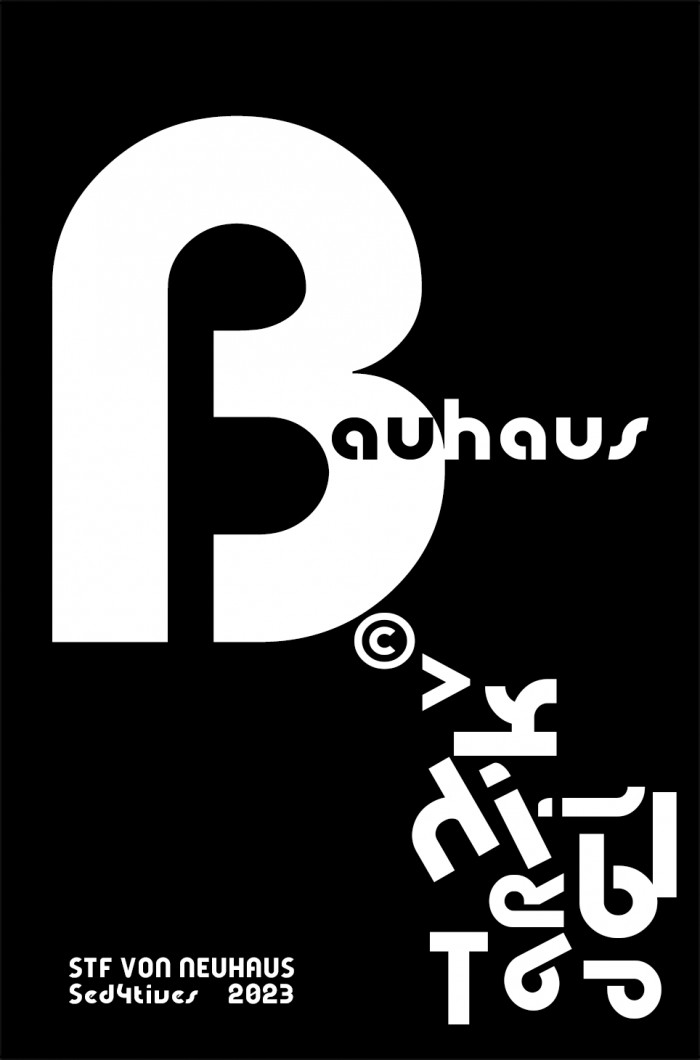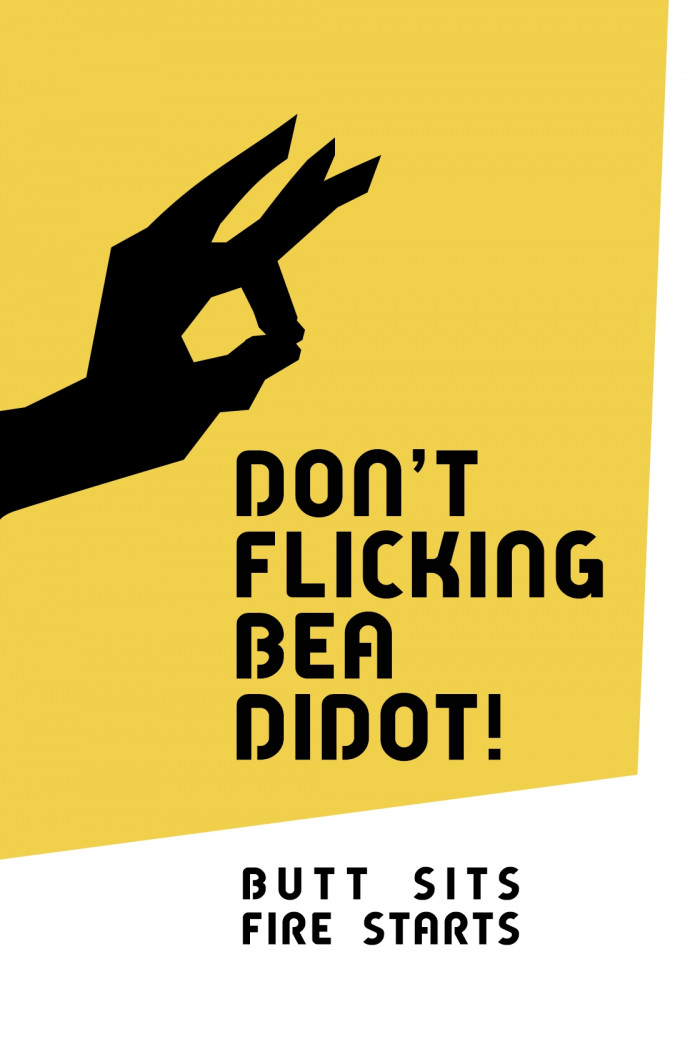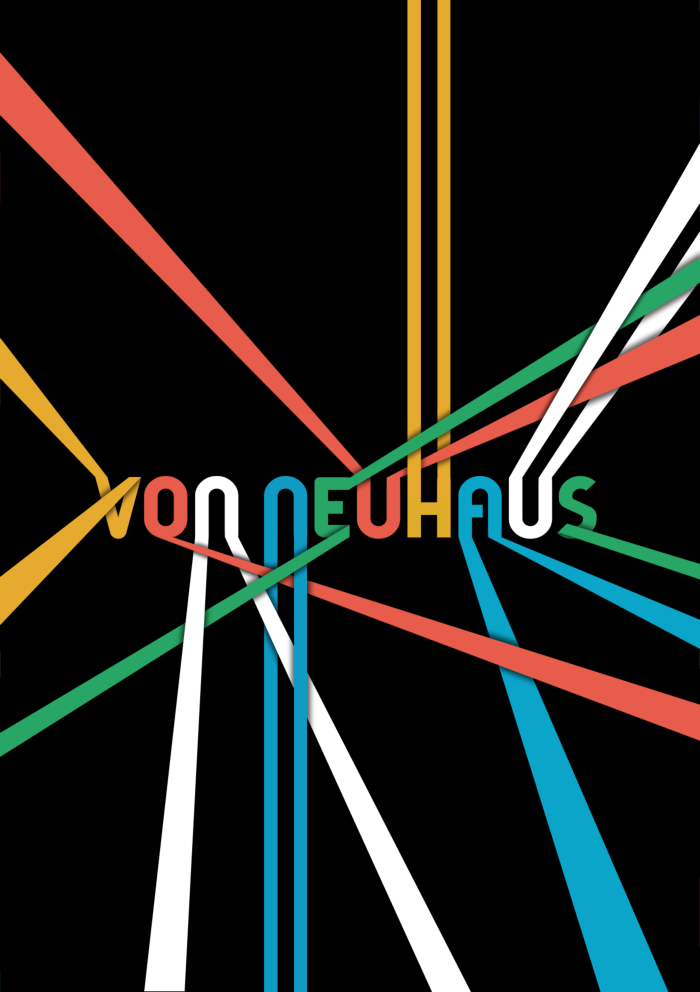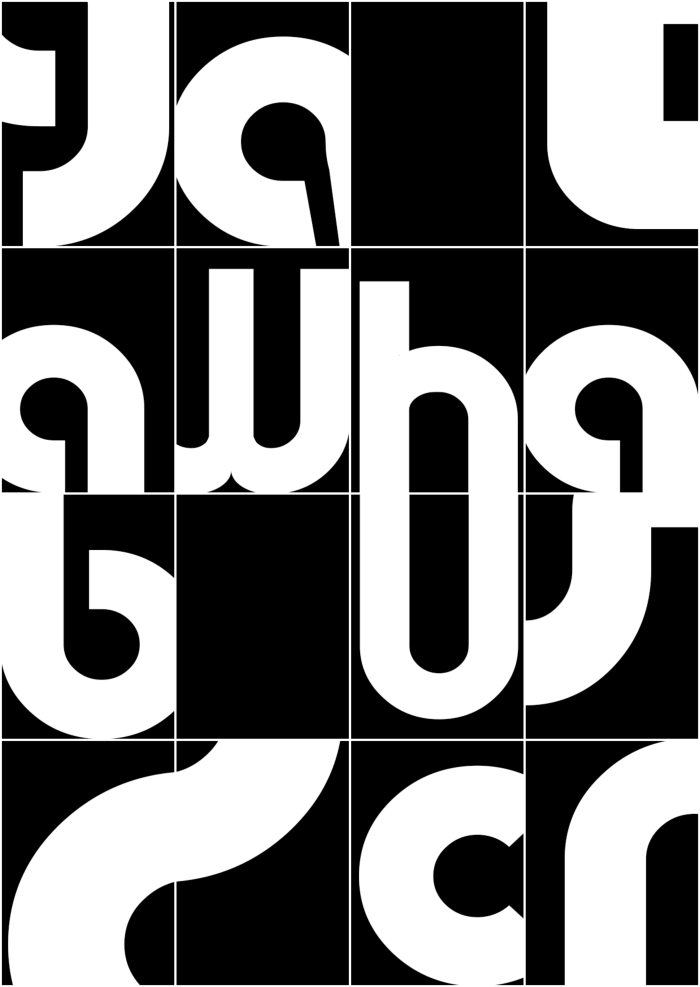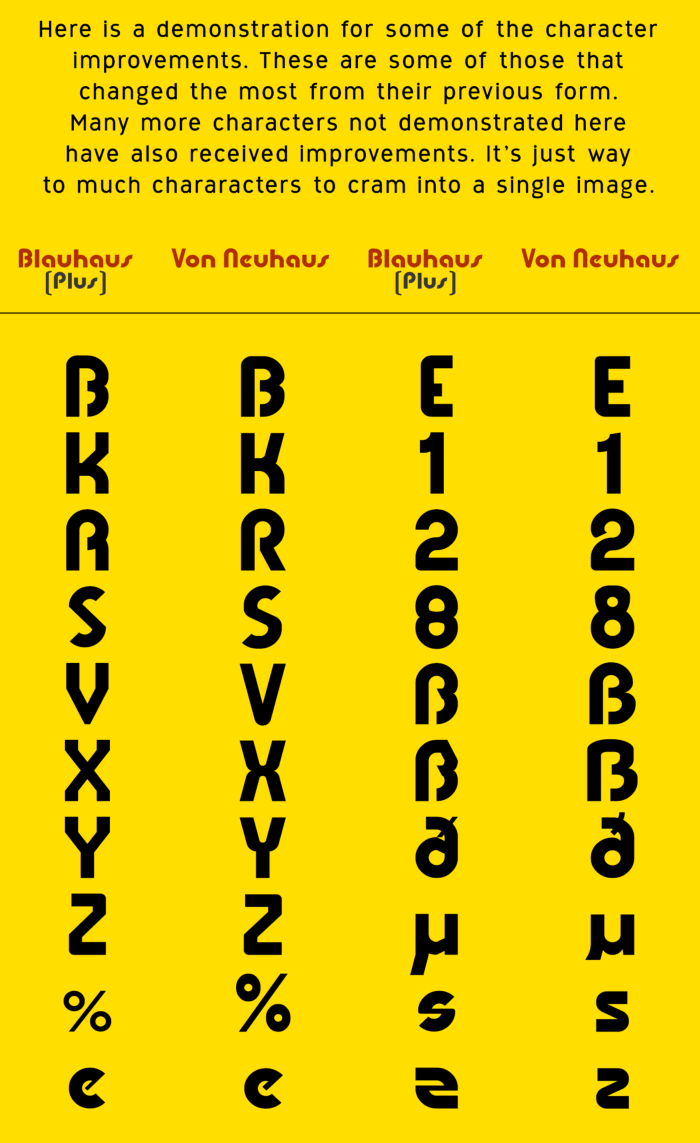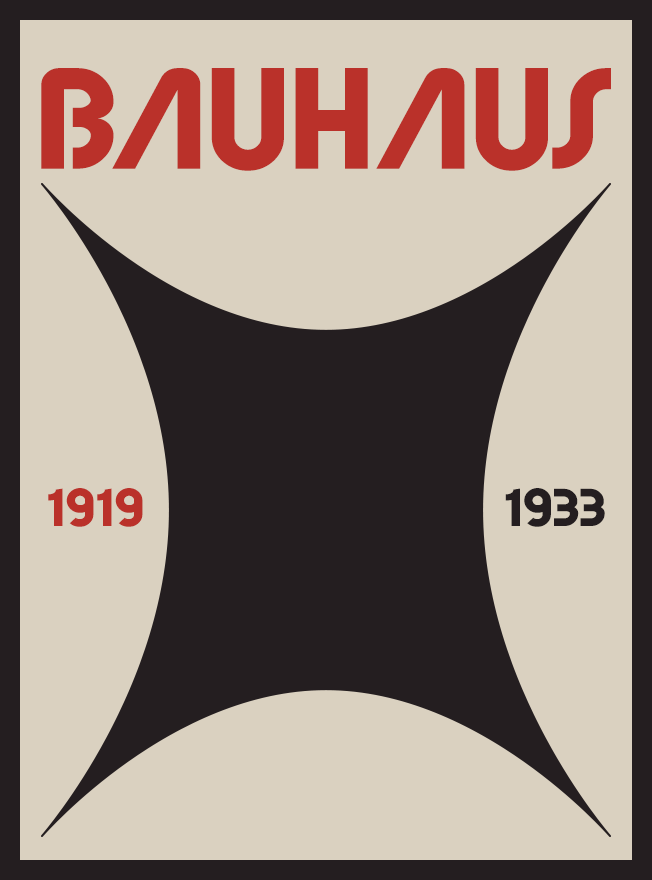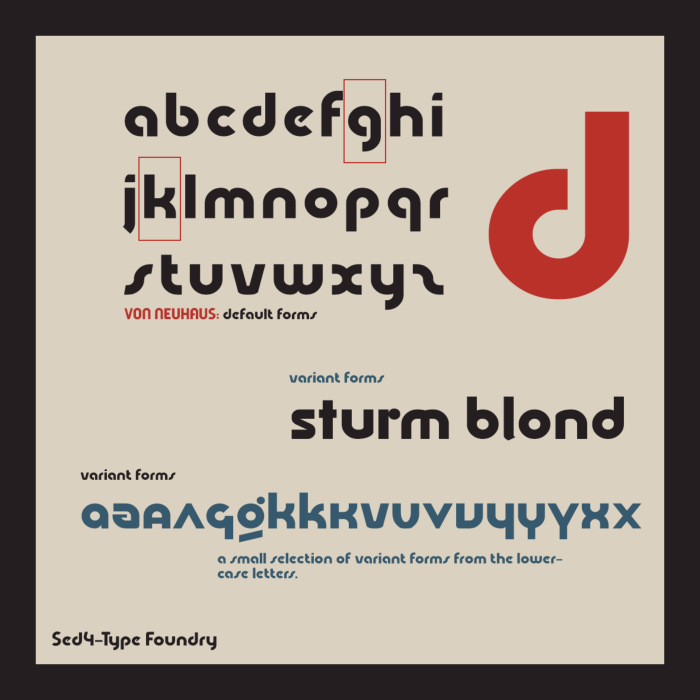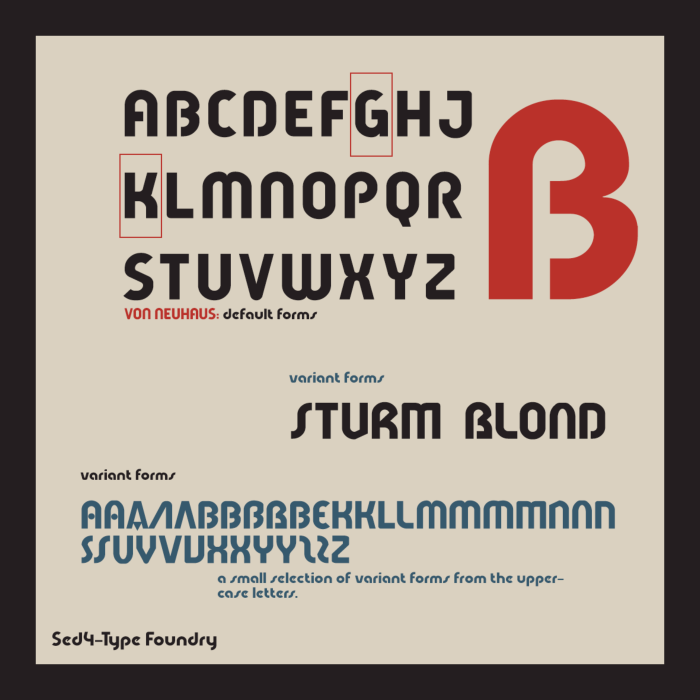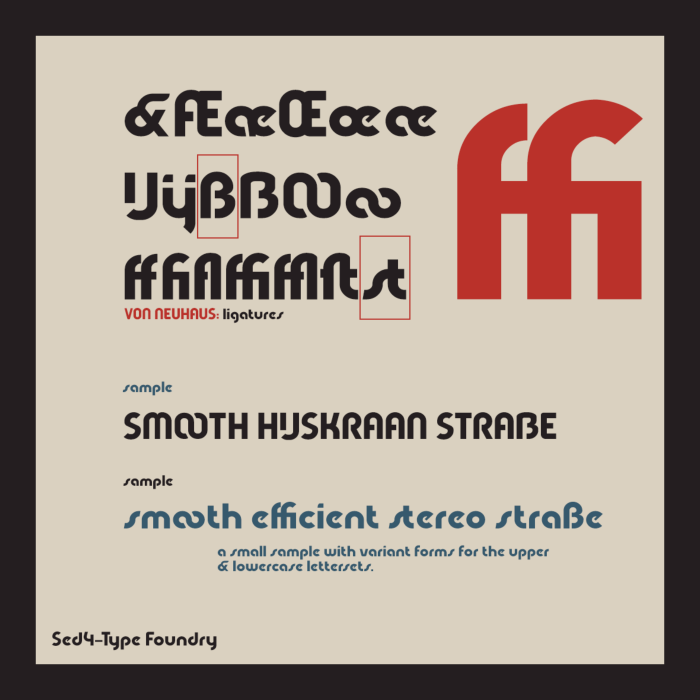
• VON NEUHAUS — Geometric “Bauhaus”-inspired style
This is the latest evolution of a “Bauhaus”-inspired constructivist style typeface design that originally started 5 years, or two font versions back.
To me personally this is a long awaited triumph, that has finally materialized after years worth of been haunted by this idea, and the crazy speculations about this ghost that would never be...
Well, that was untill now...  So at last, I can now finally proudly present to you this latest of arrivals to come from this unforeseen series of typeface progressions.
This newborn addition is in fact the 3rd phase of this letter concept's evolution, and caused the font project to undergo a series of addaptations that graduatelly increasing the levels of sophistication possible by chaging it's internal structure and behaviour within the FontStruct-editor. This 3rd addaptation unlocks the FontStruct editor's “Expert Mode” full power potential.
Enabling all editor functionallity to provide the most versatile font creation capabilities available within FontStruct.
STF_BLAUHAUS was the font's very first version, created back in early 2019. It's the font's original concept as it innitially was first intended. It essentially started out as a personal study into the design of letters on a small grid. And more importantly, the creation of required composite bricks to do so.
The idea back then was to craft the most complex geometry possible without the use of any “Expert Mode” functionality whatsoever. Now, what this innitially did was still quite novel to me at that time, as this had led to the development of a FontStruction that was solely built from the extensive use of composite bricks. Not just a couple, but a staggering 272 composite bricks in total. Many of which in fact are quite intuitive and required certain amounts of careful thinkering with the maths found in it's geomtry to craft these custom brick compositions.
So as explained above, there was no use of any of FontStruct's “Expert Mode” functions. This meant that the option to nudge, flip or rotate any of the bricks wasn't available. Now this changes everything in respect to building complex fonts, since in order to get all the bits and pieces of a letter such as: crossbars, intersections, curves and corners properly aligned requires, a precisly fitting composite brick to be tailor-made. In terms of the FontStruct limitations, this cause the physical properties of FontStruct's brick composition tool to be fundamental as to how much complexity and refinement can be put into it's letter geometry. In other words this is fundamental as to how well crafted the design is going to look in the end, since there is no option to further manicure shape or form other than from within those bounds of the adjacent 16-brick-array grid squares of a selection for composition.
I've choosen to design the alphabet concept in this “Bauhaus”-inspired geometric style, simply because of the simplicity this style has in terms of its basic pure geometric forms. The final result became this simple and bold looking small grid display type with a “3-bricks” Em-size only.
but it had some crucial compromises that had to be made due to FontStruct's design limitations. Not terrible, but not quite perfect either.
One very important byproduct from this limitations as were described above was a huge collection of very intuitive custom brick compositions that offer seemless alignement and perfect fits, basically an extensive set of custom bricks that work in a very similar fashion as FontStruct's default “Connect” bricks.
Bringing us to the main reason for 2022's version of this font.
STF_BLAUHAUS (Plus) was the font's second version, and most recent state that it sat in for the last year, up till this now. In this 2022 version of the of this font design modification the FontStruct editor's “Expert Mode” functionality was introduced into the design. Hoping to further manicure some of these compromised critical area's in an attempt to see what refinements could be implemented to revise the 2019's original version.
Now that the option to nudge, flip or rotate bricks was available, new more complex geometric shapes suddenly became possible. This sparked an explosion of new characters and additional alternative forms. Although now the FontStruct editor got vastly more versatile and potent, it remained strongly limited by that still present 1:1 brick size filter setting. Nevertheless, this made possible a very substantial update of the older font, and allowed many new shaping capabilities.
STF_VON NEUHAUS is the 3rd and final evolition to have come from my earlier FontStruct endeavours; STF_BLAUHAUS and STF_BLAUHAUS (Plus)
This version  basically saw the transition from a font only using 1:1 brick size filter into a font at 2:2 brick size filter settings to unlock all power potential of the FontStruct editor's “Expert Mode” functions.
I could now write another eqyually as long body of text, explaining what's new in this final version or which other improvements were made, or say about it whatever the hell I want, but I figure that the picture becomes even more apparent when simply comparing the 3 fonts from old to new, and see the evolution happening before your eyes.
Start with STF_BLAUHAUS, folowed by STF_BLAUHAUS (Plus), and witness the full glory of "next-level" FontStructing that made possible the last version STF_VON NEUHAUS.